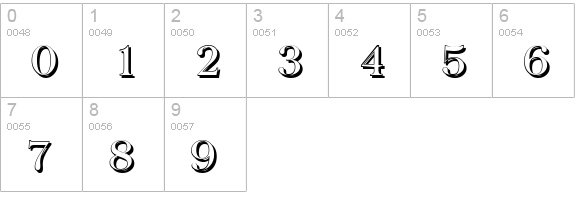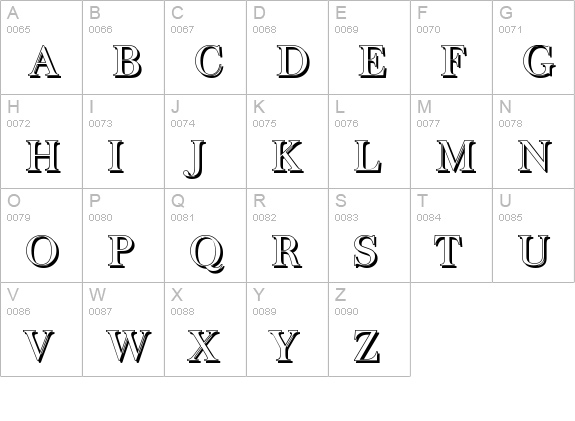
BaskervilleShadow-Regular Font Details
BaskervilleShadow-Regular is the standard, neutral variant in the BaskervilleShadow typeface family \xE2\x80\x94 well suited to general body text, paragraphs, and standard typographic work.